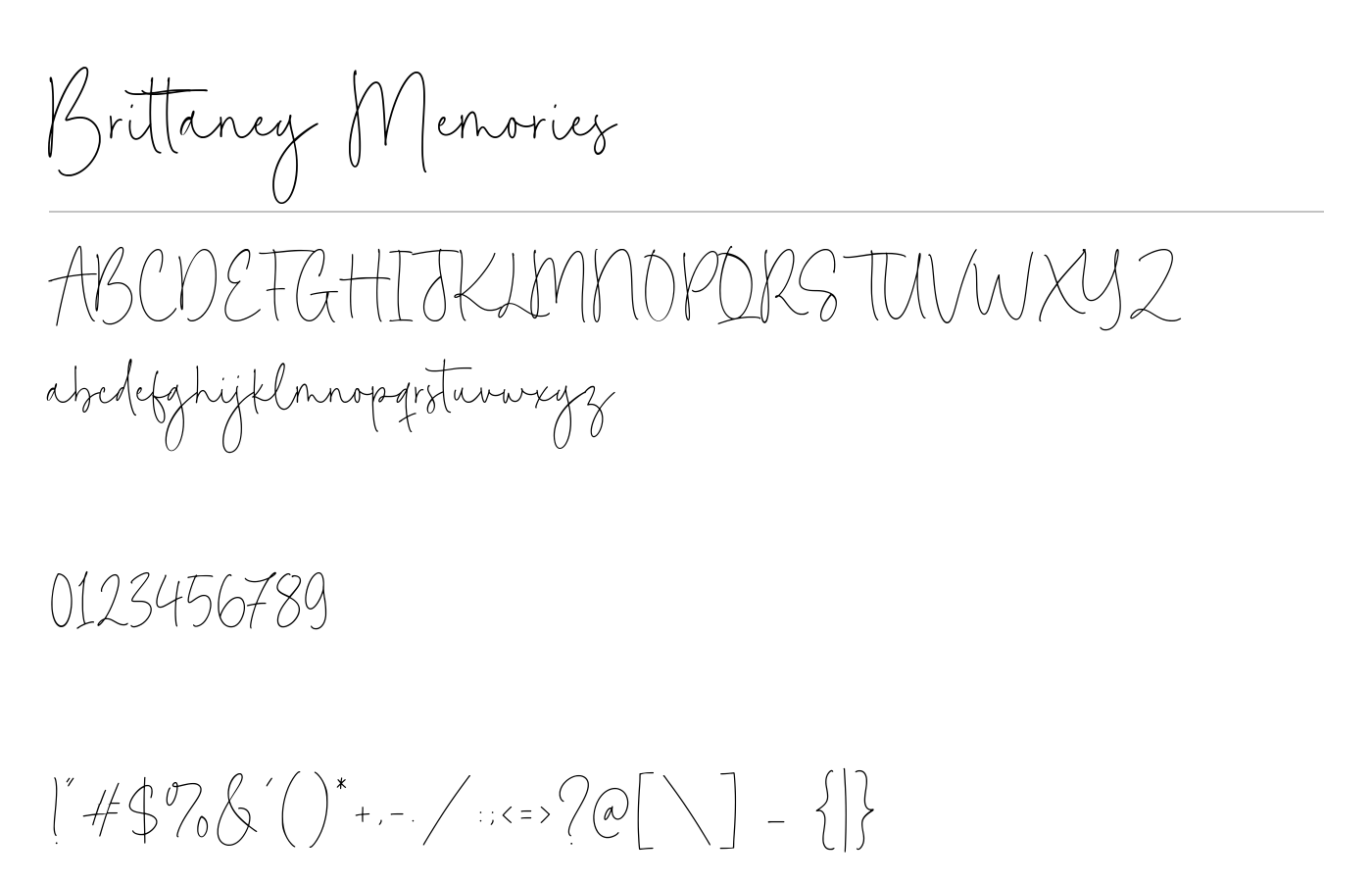
Brittaney Memories is a delicate, handwritten script font with a slender, airy style that feels personal and elegant. Its thin strokes and flowing letterforms create a soft, whimsical look ideal for invitations, branding, or any design seeking a light, intimate touch. This font works best in large sizes where its fine details and graceful curves can shine.
Brittaney Memories Font
About Brittaney Memories Font